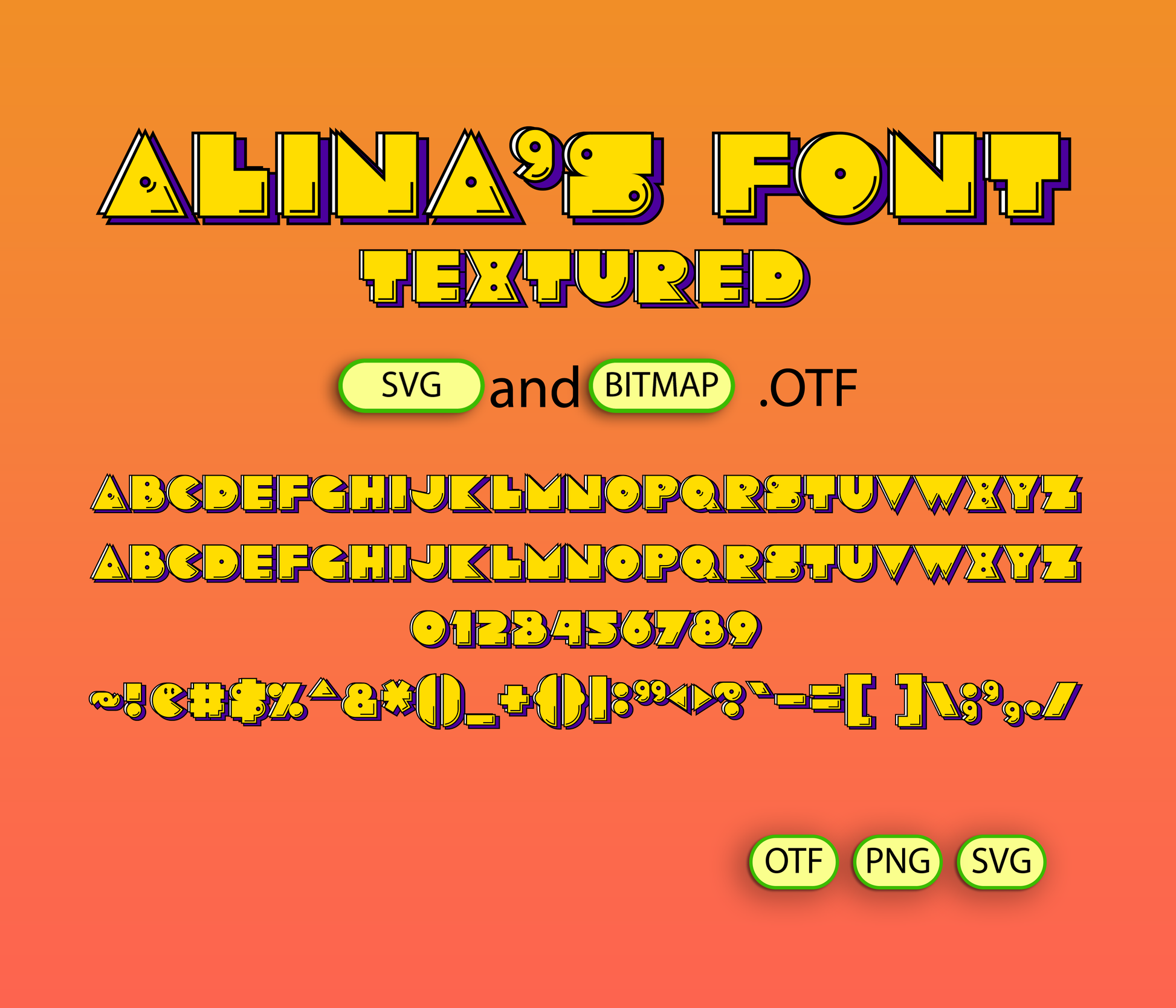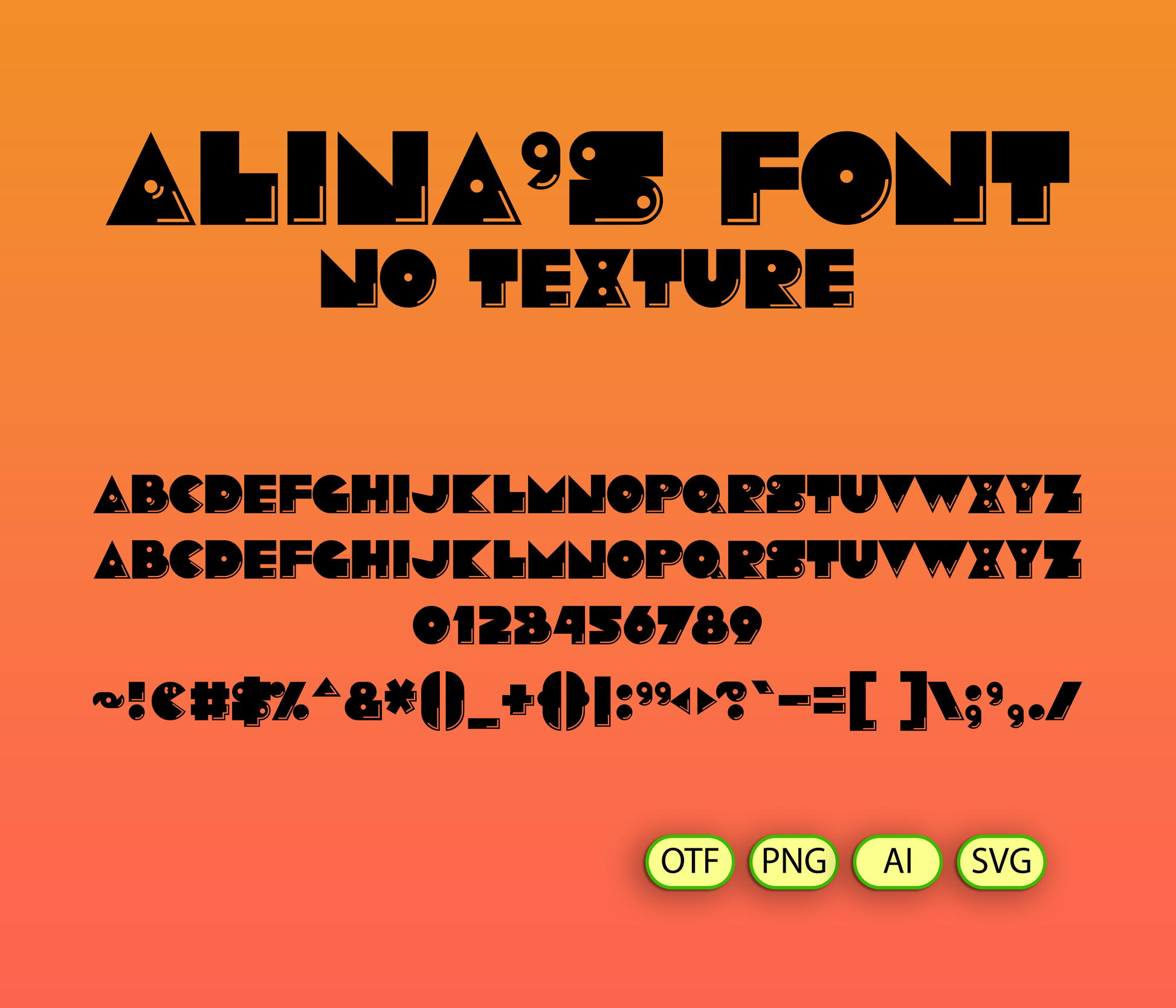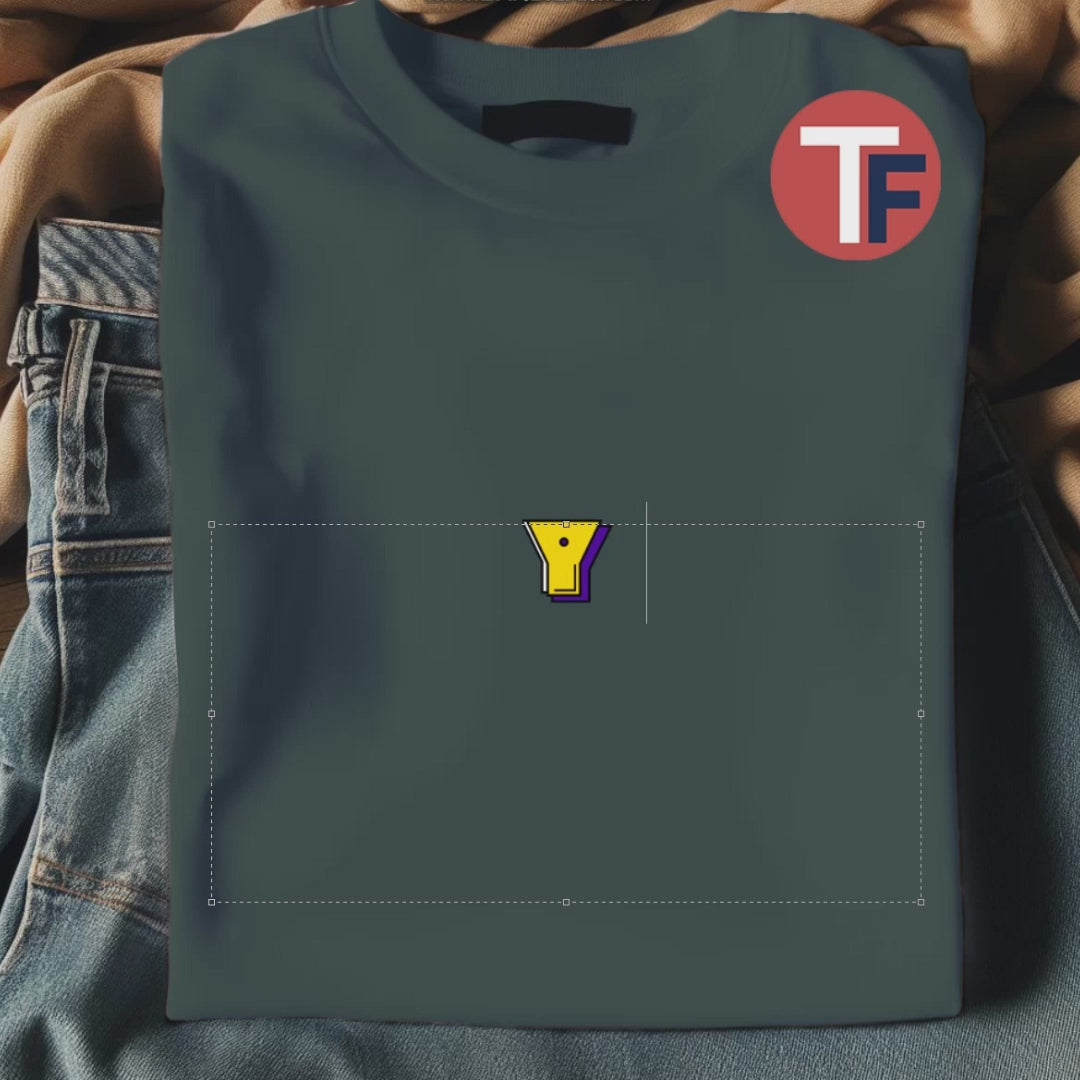
Arcade Font Textured
Power Up Your Designs with the Arcade Font
Step into the vibrant world of arcade nostalgia with our specially designed font, capturing the playful essence of the iconic game. Perfect for fans, event organizers, and designers, this font brings the lively spirit of classic arcades to your creations. Whether for event invitations, themed merchandise, or digital content, our arcade-inspired font ensures your projects resonate with the energetic vibe of this beloved game.
Our arcade-inspired font features bold, rounded characters and playful lines, reflecting the dynamic nature of the classic game. Ideal for various applications:
- Event Invitations: Create engaging invites for retro game nights, themed parties, or fan meet-ups.
- Merchandise Design: Perfect for t-shirts, posters, and accessories that capture the essence of arcade fun.
- Digital Media: Enhance websites, blogs, and social media content with vibrant headers and graphics.
- Educational Materials: Use in presentations, worksheets, and content focused on game design, retro culture, or storytelling.
- Personal Projects: Add nostalgia to scrapbooking, DIY crafts, or home decor inspired by arcade adventures.
Our arcade-inspired font includes textured and non-textured variants for maximum usability. The non-textured version ensures compatibility with all types of software, including Canva, making it accessible and easy to use across various digital and print platforms.
Arcade Font Generator
Many seek out an arcade font generator online to mimic the look of this font. Steer clear! No font generator can match the quality of this arcade font, available in textured and simple versions. Ideal for use with cutting machines.
Our arcade-inspired font not only pays homage to the timeless game but also empowers you to infuse your designs with its playful and energetic spirit. Whether crafting promotional materials, designing unique merchandise, or adding a lively touch to personal projects, this font lets you communicate with the vibrant and fun-loving essence that defines the arcade experience. Ready to bring retro flair to your creative endeavors? This font is your key to unlocking a world of colorful and dynamic design.